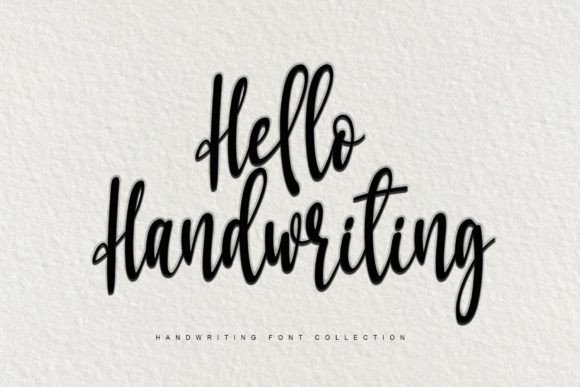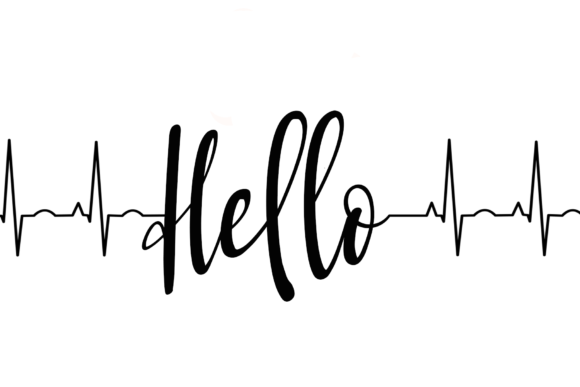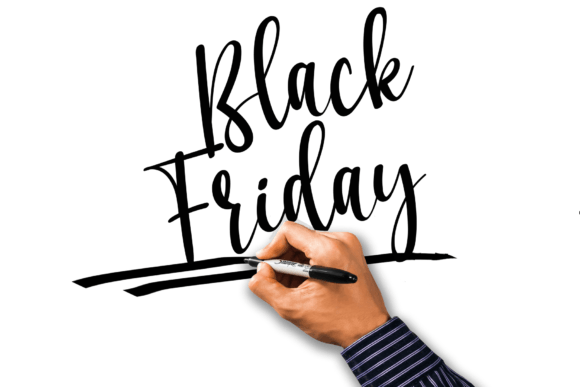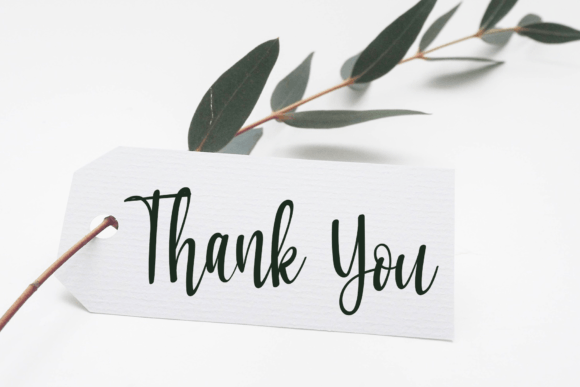
Hello Handwriting Font
About Hello Handwriting Font
“Hello Handwriting” is a stylish handwritten font that exudes a contemporary atmosphere and impeccable form, drawing inspiration from timeless classic calligraphy. This font is characterized by a balanced and varied design, carefully crafted to enhance the beauty of your projects.
The stylish handwritten quality of “Hello Handwriting” brings a modern and sophisticated touch to your text. The font captures the essence of classic calligraphy while incorporating contemporary elements, creating a versatile and timeless typeface suitable for a wide range of design applications.
The balanced design of “Hello Handwriting” ensures that each letter flows seamlessly, contributing to an overall harmonious and pleasing aesthetic. This balance is key to creating a font that is not only visually appealing but also legible and adaptable for diverse design projects.
With a varied style, “Hello Handwriting” adds an element of dynamism to your text. The font’s versatility allows it to be used for different purposes, from branding and marketing materials to invitations, posters, and more. Its adaptability makes it a valuable asset in the creation of visually striking and engaging designs.
Whether you’re working on a contemporary project that demands a touch of elegance or seeking a font that effortlessly combines classic and modern elements, “Hello Handwriting” offers a solution. Its impeccable form and timeless appeal make it a valuable addition to your font collection, providing you with a tool to enhance the beauty of your creative endeavors.
In summary, “Hello Handwriting” is a stylish handwritten font designed with a contemporary atmosphere and impeccable form. Inspired by timeless classic calligraphy, this font offers a balanced and varied design, making it an excellent choice to elevate the beauty of your projects. Embrace the versatility and timeless appeal of “Hello Handwriting” to bring a touch of sophistication to your designs.